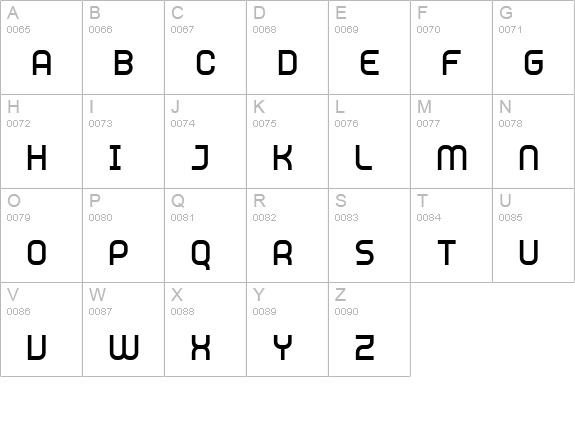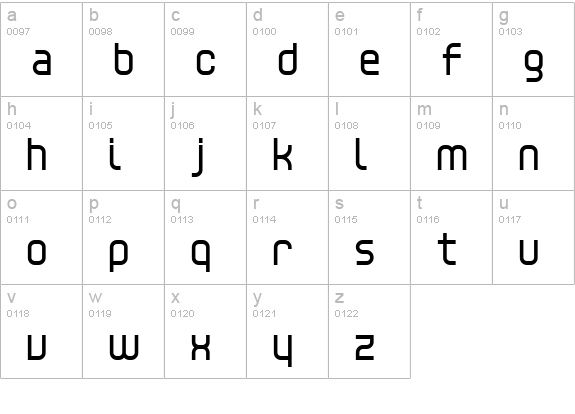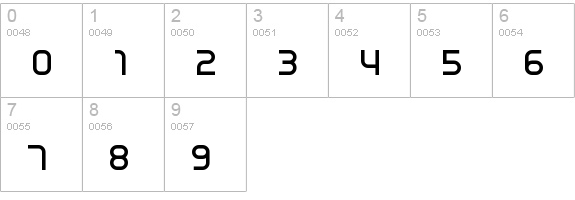
Unisect Bold is a strong, high-contrast variant in the Unisect typeface family \xE2\x80\x94 well suited to headlines, attention-grabbing titles, and strong calls-to-action.
Unisect Bold is a powerful and striking font that demands attention with its bold and modern design. With its clean lines and strong geometric shapes, this font is perfect for any project that requires a bold and impactful statement. The versatility of Unisect Bold allows it to be used in a variety of contexts, from headlines and titles to logos and branding materials. Its strong presence captivates the viewer and leaves a lasting impression. Whether it's for a poster, website, or packaging design, Unisect Bold brings a sense of boldness and professionalism to any project. What sets Unisect Bold apart is that it is freely available to download at FontsMarket.com. This means that you can easily access this exceptional font without any cost or restrictions. Whether you're a professional designer or someone who simply wants to enhance the look of their personal project, Unisect Bold is at your fingertips, ready to be utilized. Don't miss out on the opportunity to add this bold font to your collection. Its clean and impactful design, combined with its availability for free, makes Unisect Bold a must-have for any design enthusiast. Download it now from FontsMarket.com and elevate your projects to new heights.